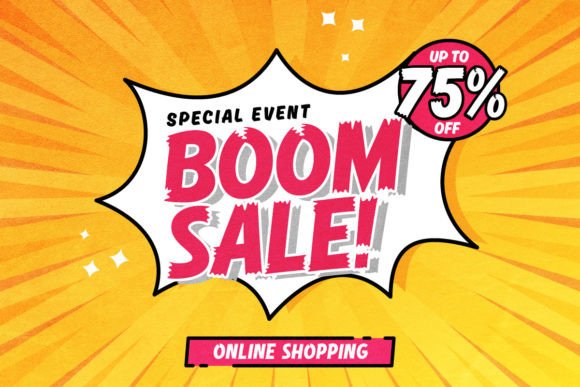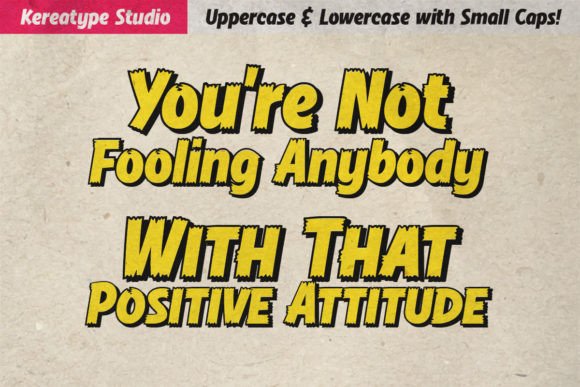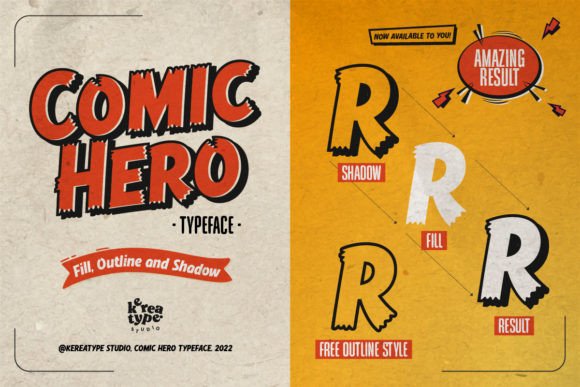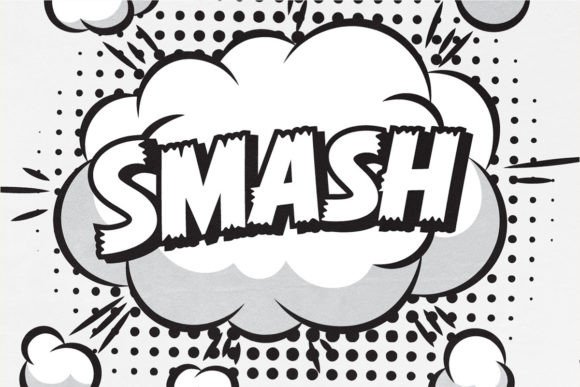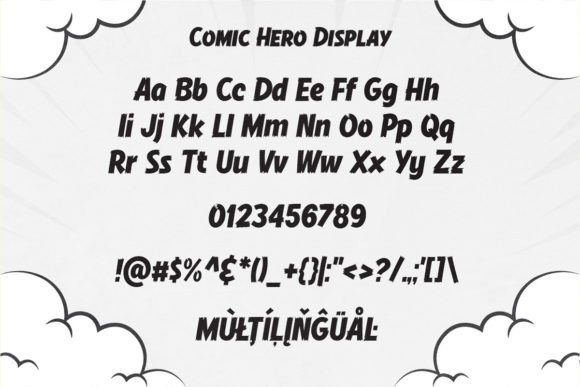
The Birth of a Comic Masterpiece
Who hasn’t been there – staring at a blank page, trying to come up with the perfect design to capture the essence of a character or a story? It’s a moment every designer has experienced at some point, and it’s exactly this moment that inspired the creation of the Comic Hero Font.
Designed to evoke a sense of playfulness and strength, the Comic Hero Font is perfect for any design that needs a touch of excitement. From book covers to packaging, this font is sure to make your creations stand out. With its high level of aesthetics, it’s no wonder designers are turning to the Comic Hero Font to bring their designs to life.
Whether you’re a seasoned pro or just starting out, the Comic Hero Font is an invaluable tool for any designer looking to add a touch of comic book charm to their work. With its versatility and ease of use, it’s no wonder it’s become a go-to choice for designers around the world.
Key Features of Comic Hero Font
- Font Family: Comic Hero Font is a sans-serif font family designed to resemble comic book lettering.
- Unique Characteristics: The font family features bold, dynamic letterforms with exaggerated lines and subtle texture, giving it a distinctive comic book feel.
- Style Options: Comic Hero Font includes various style options, including Regular, Bold, Italic, and Bold Italic, allowing users to customize the look and feel of their text.
Comic Hero Font Review
Overall, I think the Comic Hero Font has some great qualities that make it perfect for certain projects, but it also has some limitations that might not make it suitable for every design.
- The bold and playful feel of the font is perfect for comic book-inspired designs or children’s books.
- The font has a clear and readable structure, making it great for body text.
- The font comes in a range of weights and styles, allowing for a lot of customization options.
- The font can be a bit too playful and may not be suitable for more formal or professional designs.
- The font may not be the best choice for smaller text sizes, as it can become hard to read.
- The font’s bold style can be a bit too overpowering in some cases.
Overall, I think the Comic Hero Font is a great choice for projects that need a bold and playful feel. However, it’s not the best choice for every design, and it’s worth considering the limitations when deciding whether to use it.
Getting the Most Out of Comic Hero Font
To get the most out of Comic Hero Font, try the following tips:
- Combine Comic Hero Font with other fonts for a unique look.
- Use Comic Hero Font for headings and titles to create a bold, eye-catching effect.
Comic Hero Font is commonly used for:
- Comic book-style graphics and illustrations.
- Children’s books and educational materials.
- Graphic novels and manga-style comics.
- Advertising and marketing materials.
Alternatives to Comic Hero Font
Great Vibes is a modern, hand-drawn font that resembles a comic book style. It’s ideal for use in logos, headings, and titles where a playful, casual feel is desired. Great Vibes is more elegant and refined compared to Comic Hero Font, making it suitable for a wider range of design projects.
Pacifico is a beautiful, cursive font that evokes a sense of nostalgia and playfulness. It’s perfect for use in headings, titles, and body text where a relaxed, laid-back feel is desired. Compared to Comic Hero Font, Pacifico is more refined and elegant, making it suitable for use in a variety of design projects, from magazines to websites.
Dancing Script is a flowing, handwritten font that’s perfect for use in titles, headings, and body text where a sense of whimsy and playfulness is desired. It’s more elegant and refined compared to Comic Hero Font, making it suitable for use in high-end design projects, such as luxury brands and fashion magazines.